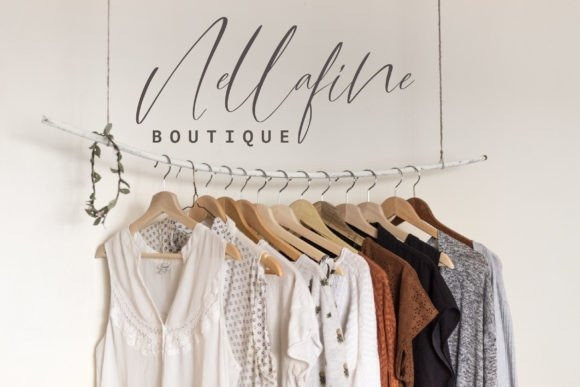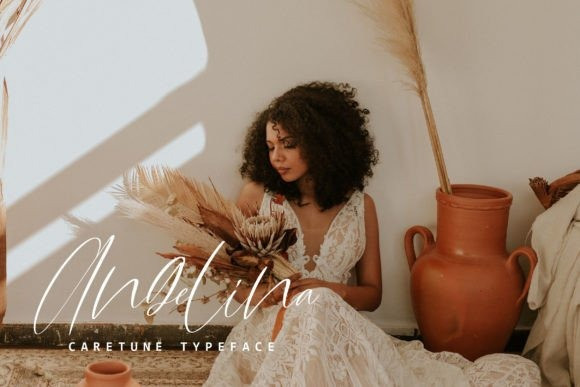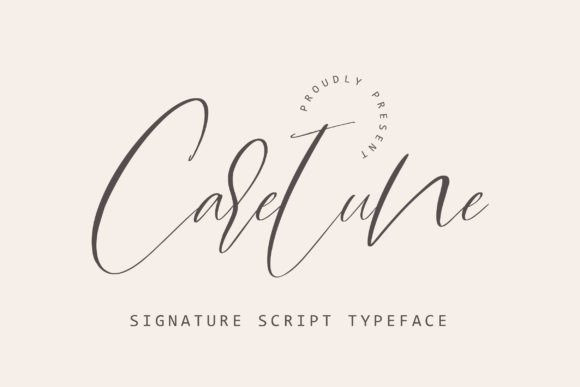
Caretune Font
Caretune Script Font is a fashionable and exquisite script font! Its chic design features bold, sweeping curves and a modern, edgy attitude that conveys a sense of confidence and style. Perfect for fashion branding, editorial layouts, and other trendy designs.